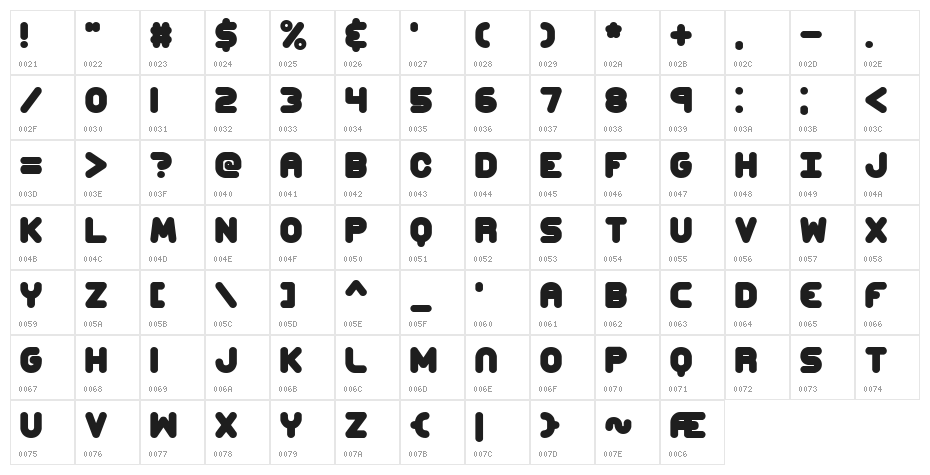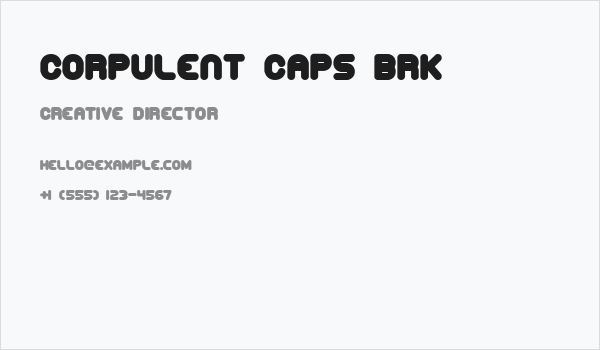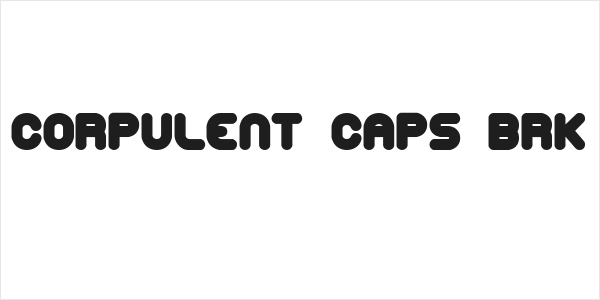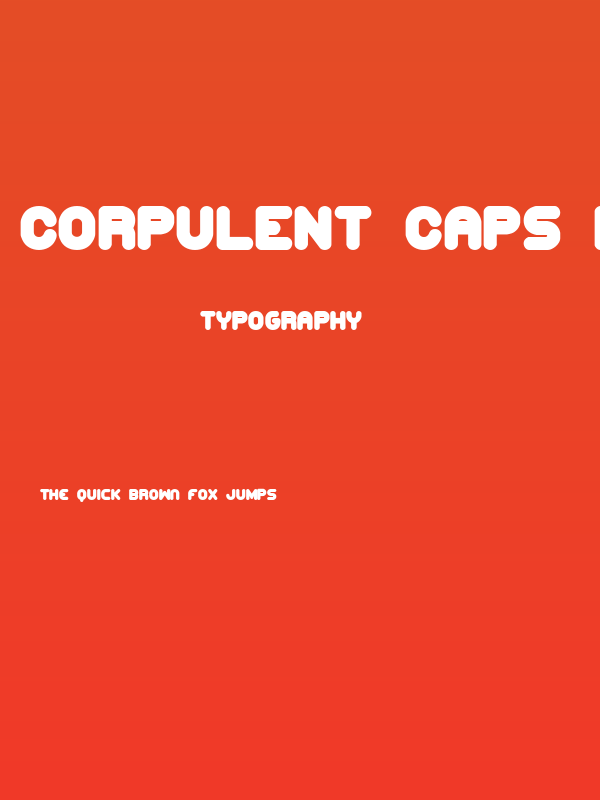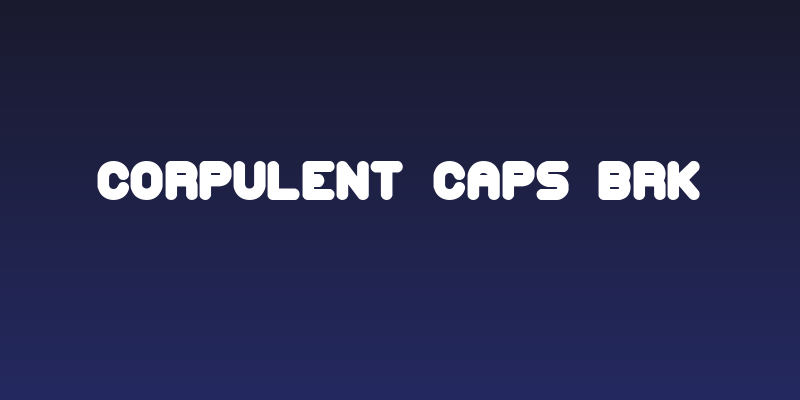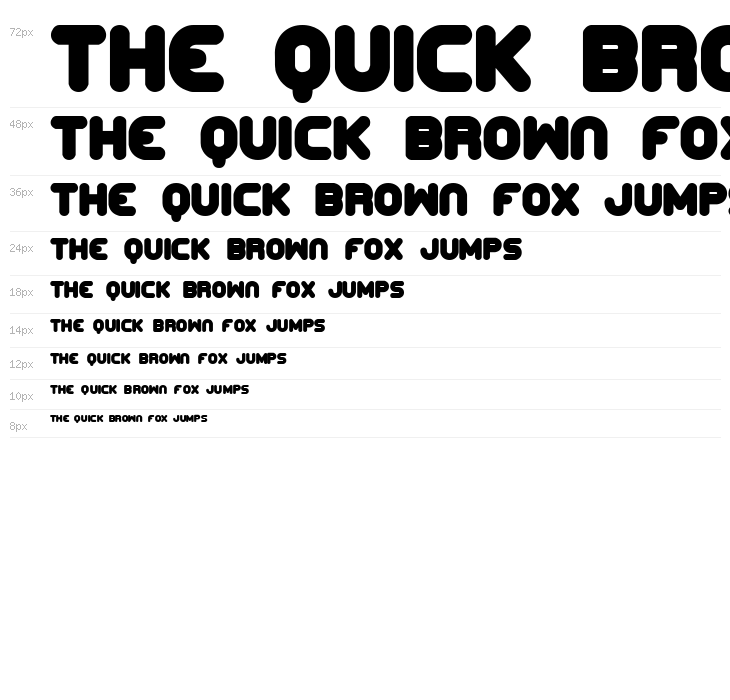
Corpulent Caps BRK Font
Corpulent Caps BRK Description
This font features bold, rounded characters with a playful and chunky appearance. The letters are uniformly thick, creating a strong visual impact. The rounded edges give it a friendly and approachable feel, making it suitable for designs that aim to be inviting and engaging. The numbers and special characters maintain the same bold and rounded style, ensuring consistency across all elements. Its unique style is ideal for projects that require a standout typeface with a touch of whimsy.
| Overall Style | Playful, Modern |
| Proposed Projects | Ideal for children's books, playful branding, posters, and any design needing a bold, friendly typeface. |